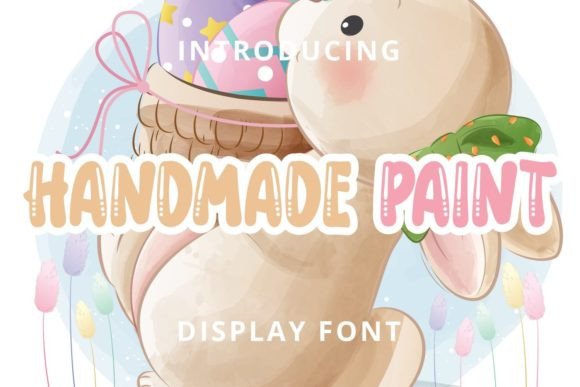
Journey into a world where imagination dances on the canvas of creativity, where every stroke of the brush weaves a tale of joy. Introducing Handmade Paint Font, the illustrious display font that will ignite your designs with a vibrant zest. Orchestrated by the maestros at Planetz studio, this font is a symphony of artistic expression, ready to transform your projects into captivating masterpieces.
Handmade Paint Font isn't just a collection of letters; it's a kaleidoscope of colors, a melody of emotions, and a celebration of life. Each character exudes a unique personality, inviting you to explore the depths of your creativity. Whether you're crafting logos, posters, social media graphics, or school projects, Handmade Paint Font is your trusty companion, guiding you towards visual excellence.
Picture this: a logo that bursts with energy, a poster that captivates the eyes, a social media post that dances with delight, or a school project that leaves your audience spellbound. With Handmade Paint Font, the possibilities are boundless. Its playful nature lends itself seamlessly to designs that demand attention, while its versatility allows it to blend harmoniously with a wide range of aesthetics.
Embrace the allure of Handmade Paint Font today and embark on a creative odyssey like no other. Let your designs blossom with life, let your imagination run wild, and let your creativity soar to new heights. The world is your canvas, and Handmade Paint Font is your brush, ready to paint a masterpiece that will leave an enduring impression.